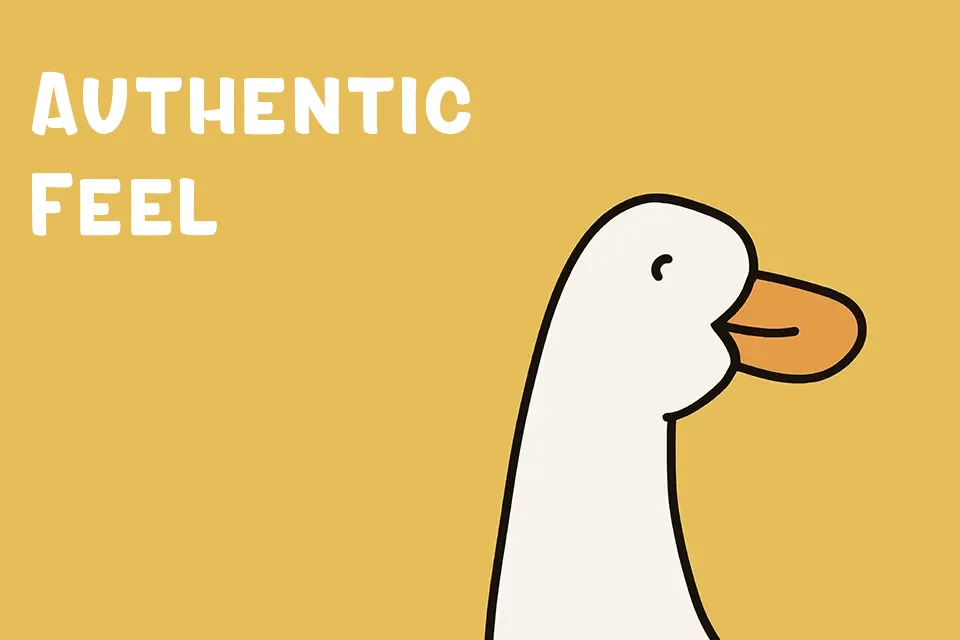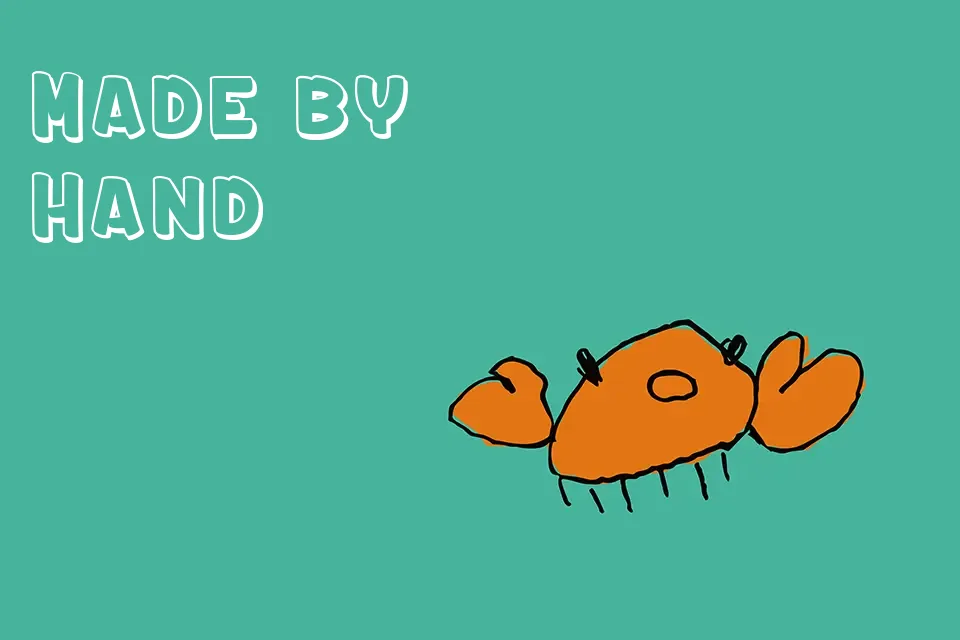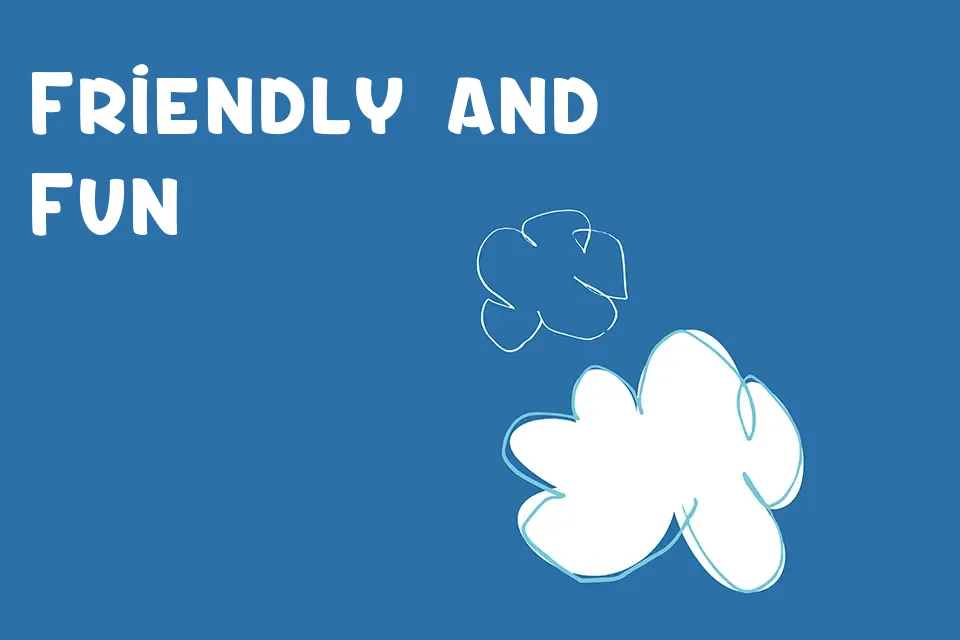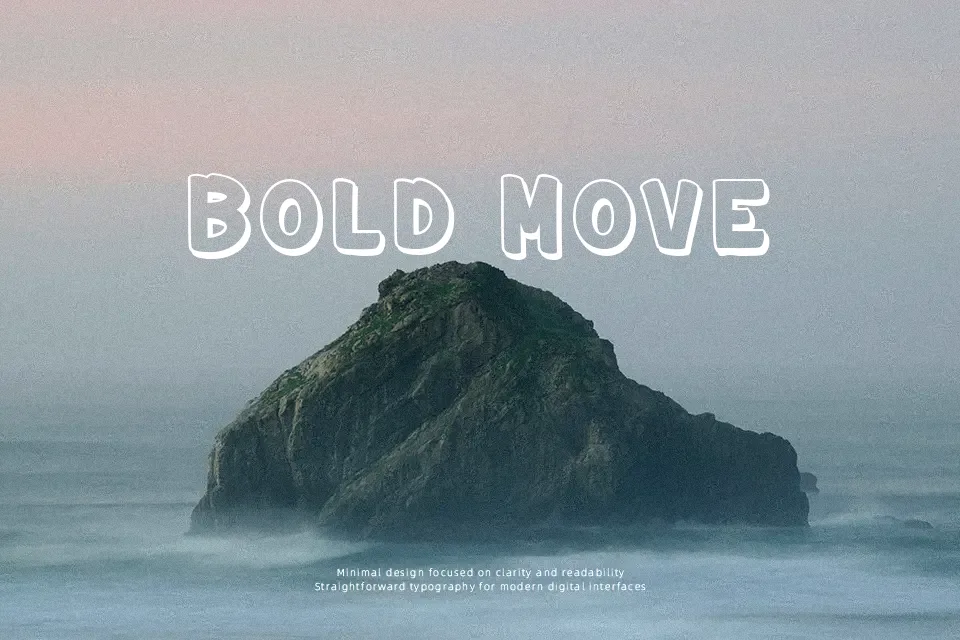
Professor Marbles Font
The Professor Marbles Font introduces a delightfully irregular, hand-drawn structure with energetic baseline shifts and rounded stroke endings. The letterforms display a natural, bouncy rhythm that creates a highly approachable and friendly appearance. Stroke thickness varies slightly, mimicking authentic marker or pen lettering while retaining excellent legibility in medium to large display contexts. The slightly open spacing helps maintain clarity when reading casual headlines or playful titles. This typeface shines when applied to children’s editorial projects, toy packaging, and lighthearted event posters. However, the varying character proportions and dynamic baseline make these letterforms less effective in dense, continuous paragraph text, where a more structured rhythm is typically required.
Best For: children’s book covers, casual game interfaces, toy packaging, comic strip dialogues
Not Ideal For: corporate legal documents, long paragraph text, dense spreadsheet data
Perfect for gaming, headline, and kids, with a creative and comic style.